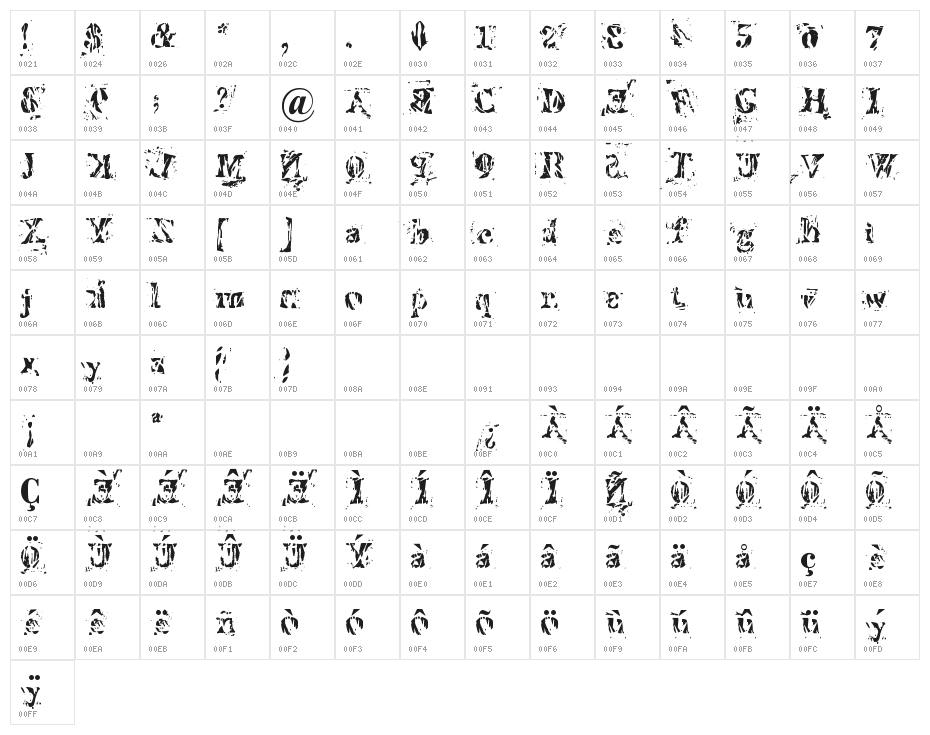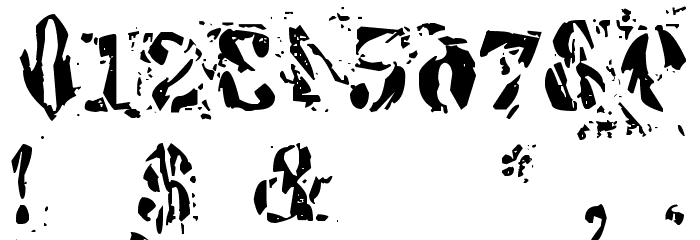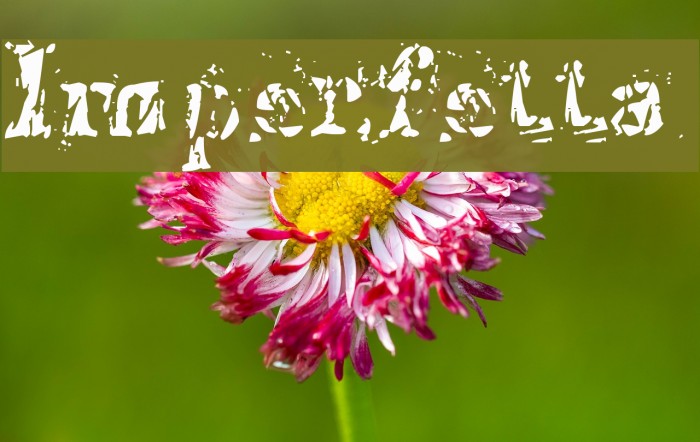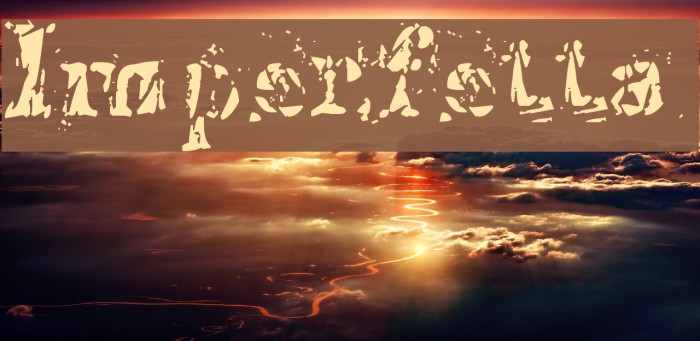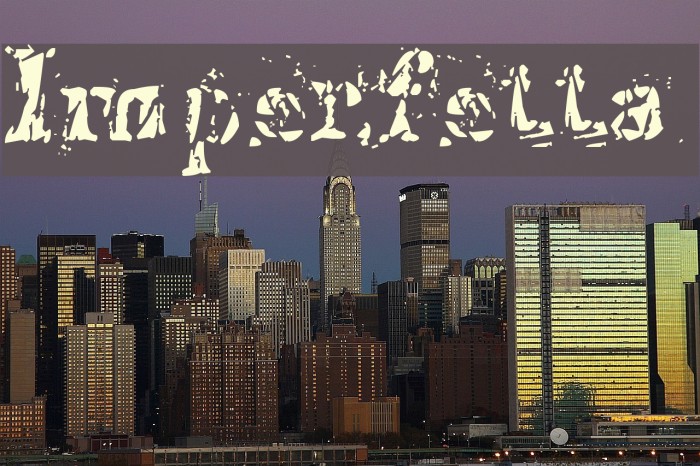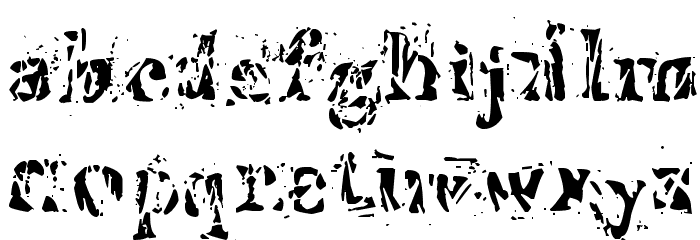
Imperfetta Font
Imperfetta Description
This font features a distressed and grunge aesthetic, characterized by its rough, textured appearance. Each letter appears as if it has been weathered or eroded, giving it a unique, imperfect look. The uppercase and lowercase letters maintain a consistent style, with jagged edges and irregular shapes that add to its rugged charm. The numbers and special characters follow the same design, ensuring a cohesive look throughout. This font is ideal for projects that require a raw, edgy feel, such as album covers, posters, or any creative work that aims to convey a sense of rebellion or nonconformity.
| Overall Style | Grunge, Distressed |
| Use Case | Headlines, Logos, Artistic projects |
| Proposed Projects | Album covers, posters, street art, rebellious-themed designs. |